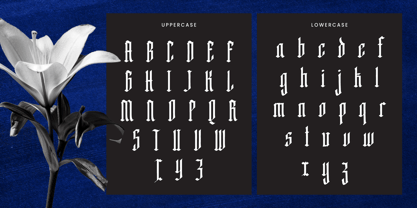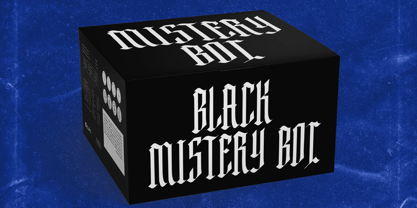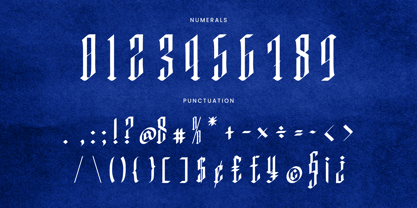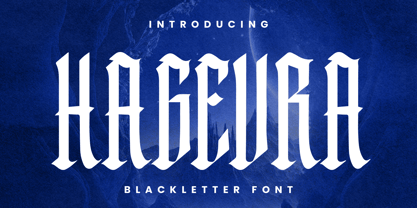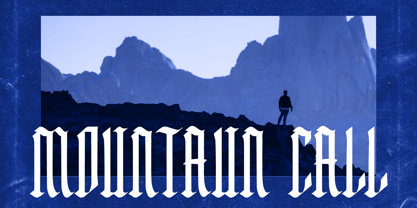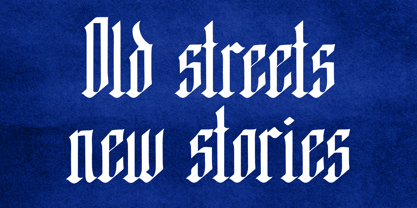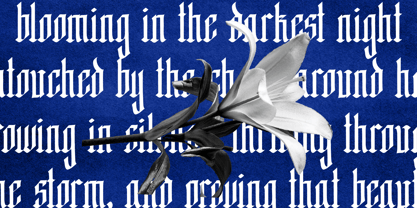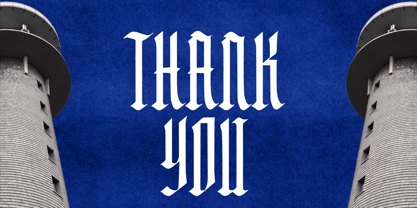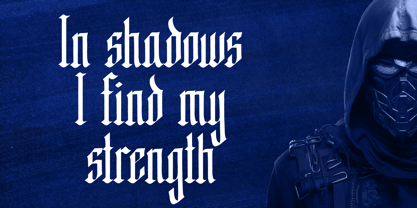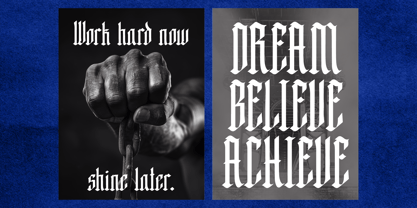
Hagevra
by Rvandtype
The Hagevra Font Family was designed by Randi Irvan and published by Rvandtype. Hagevra contains 1 styles.
Hagevra is a bold and striking blackletter font that seamlessly blends traditional Gothic aesthetics with a contemporary edge. With its tall, sharp, and assertive letterforms, this typeface makes a powerful statement in any design project. Whether you’re crafting motivational posters, album covers, or dramatic branding, Hagevra exudes strength, intensity, and style. Features: - Uppercase & lowercase characters - Classic blackletter style infused with modern flair - Ideal for posters, logos, branding, editorial headlines, and more. What’s Included: - Uppercase Letters - Numbers & Punctuation - Multilingual Support. Elevate your designs with Hagevra, a typeface that captures attention and conveys a sense of boldness and creativity, making it perfect for impactful branding and expressive visual communication.